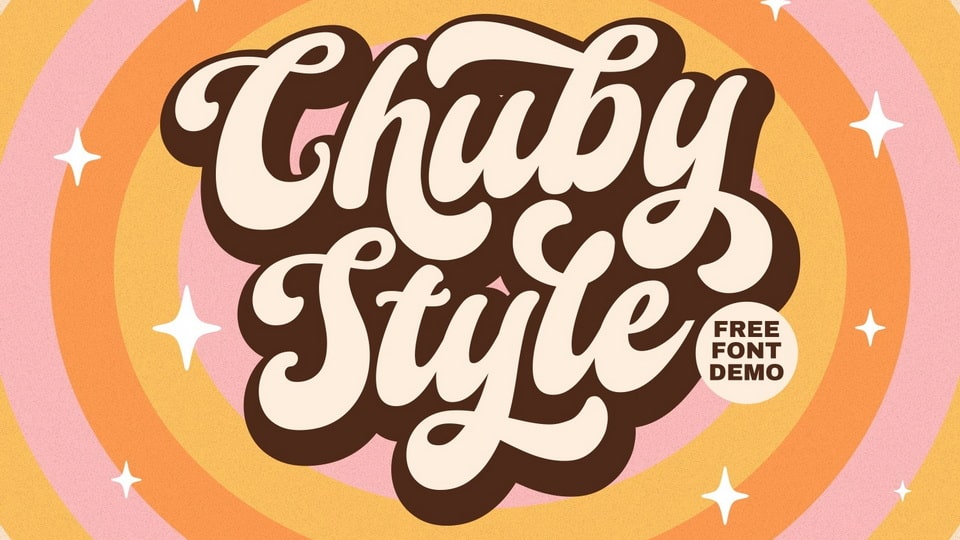
Download Chuby Style font, a chubby and modern script typeface. Its round edges and soft curves give Chuby Style font a unique and retro feel, making it a great choice for adding a fun and playful vibe to any design.
Designer: Keithzo (7NTypes)